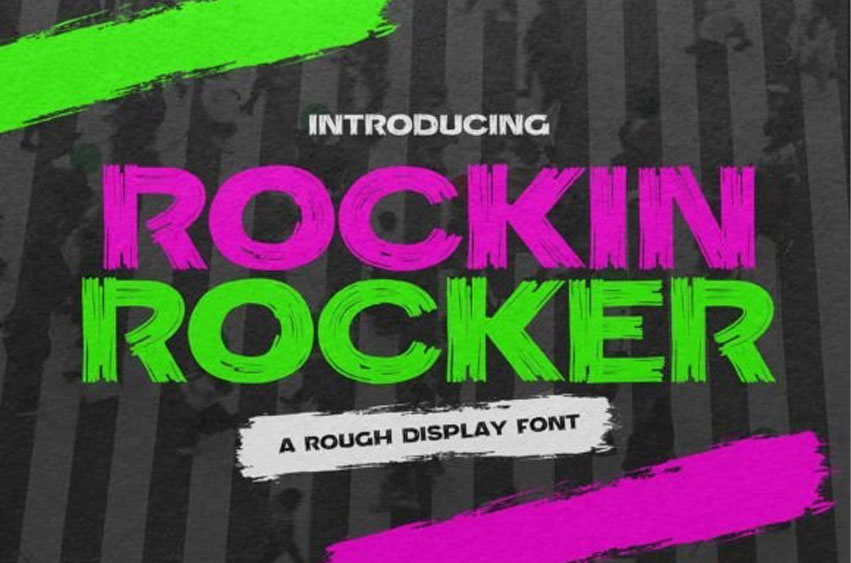
Rockin Rocker Font
Rockin Rocker Font is a cool and modern brush display font that exudes a rebellious energy. Its bold and dynamic letterforms are inspired by rock and roll, adding a touch of attitude to your designs.
Perfect for music-related projects, album covers, posters, and more. Let Rockin Rocker bring a rockstar vibe to your creative endeavors.